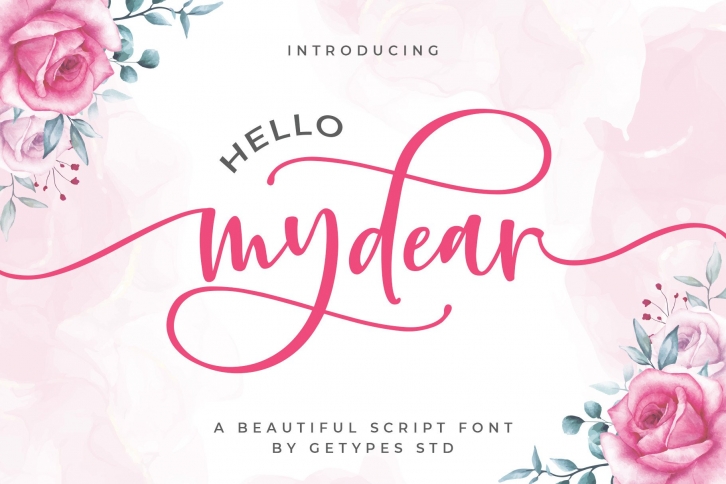
Hello Mydear is a flowing handwritten font, described by an elegant touch, perfect for your favorite projects. This font is PUA encoded which means you can access all of the glyphs and swashes with ease!Â